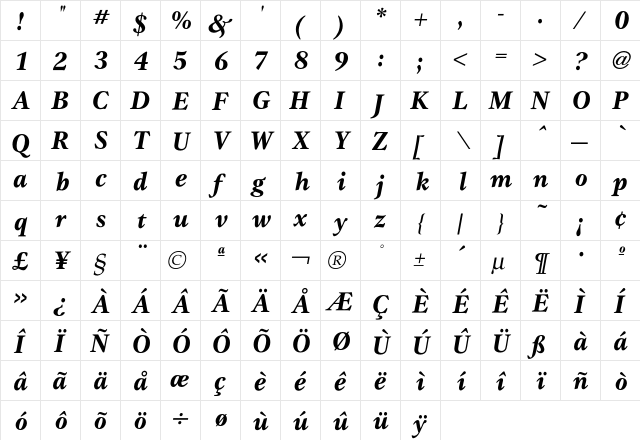
Gamma BoldItalic Font Preview
Design Context for Gamma Typeface
Gamma takes a measured approach to typography — its balanced proportions and neutral character make it a reliable workhorse for both digital and print work. The dynamic lean of this cut emphasises speed and emphasis in any layout. Its bold stroke weight gives it real presence on the page.
Pro Tip: Try Gamma for annotation and caption copy alongside an upright companion — the contrast in angle creates a dynamic but ordered typographic system.